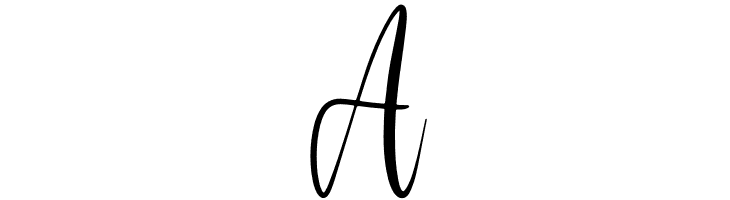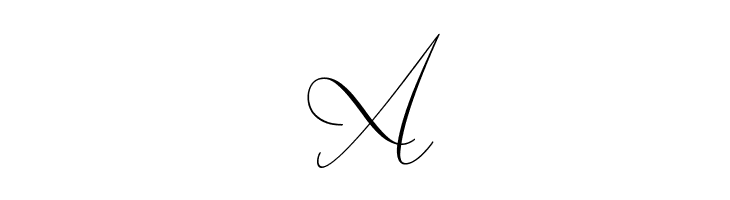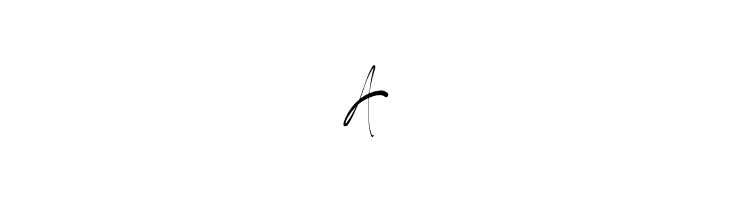
A bold and expressive script font with dynamic, flowing letterforms.
A bold, expressive handwritten font with dynamic strokes and playful curves.
A playful, bold font with rounded edges and a hand-drawn style.
A bold, rounded font with a playful and friendly style.
A bold, angular font with a modern, edgy style.
A bold, geometric font with a retro, stencil-like design.
A bold, geometric font with a strong, industrial style.
A bold, playful font with a cartoonish and dynamic style.
A bold, flowing script font with elegant, cursive letterforms.
A bold, angular font with a modern, edgy style and high contrast.
Expressive handwritten script with a signature style.
A bold, geometric font with a double-line structure and modern aesthetic.
A playful, bold font with rounded, bubble-like characters perfect for creative projects.
A playful, handwritten font with a casual and friendly appearance.
A playful handwritten font with smooth curves and a casual style.
A bold, playful script font with a hand-drawn feel.
A playful, bold font with whimsical, rounded strokes and a lively design.
A playful, hand-drawn font with a casual and friendly style.
A playful, hand-drawn font with rounded, bold letters and a whimsical style.
A bold, flowing script font with interconnected characters and strong visual impact.
A playful, handwritten-style font with rounded edges and a casual feel.
A playful, bold font with rounded, bubbly characters ideal for creative projects.
A modern, narrow font with consistent stroke width and balanced spacing.
A lively, expressive handwritten font with fluid strokes and artistic flair.
A playful, hand-drawn font with rounded edges and a whimsical style.
A playful, handwritten font with smooth, flowing curves and a casual style.
Playful and bold handwritten font.
A bold, playful handwritten font with dynamic strokes and a casual style.
An elegant, flowing script font with a modern calligraphic style.
A playful, hand-drawn font with bold, irregular strokes and a whimsical style.
A lively, cursive font with elegant loops and a handwritten feel.
Playful, bold handwritten font with a casual style.
A playful handwritten font with heart-shaped dots and smooth, rounded letters.
A romantic and sophisticated script font with elegant, flowing characters.